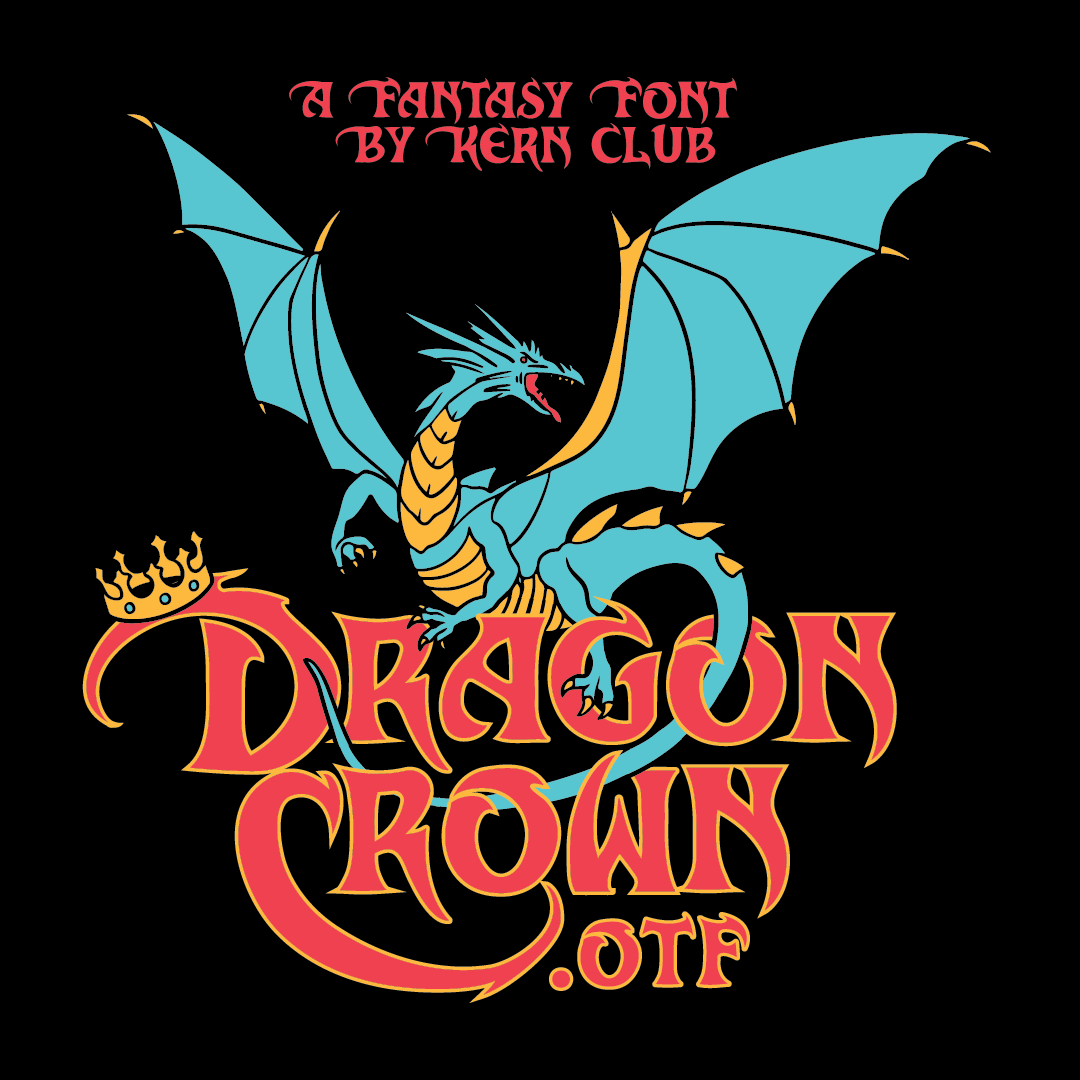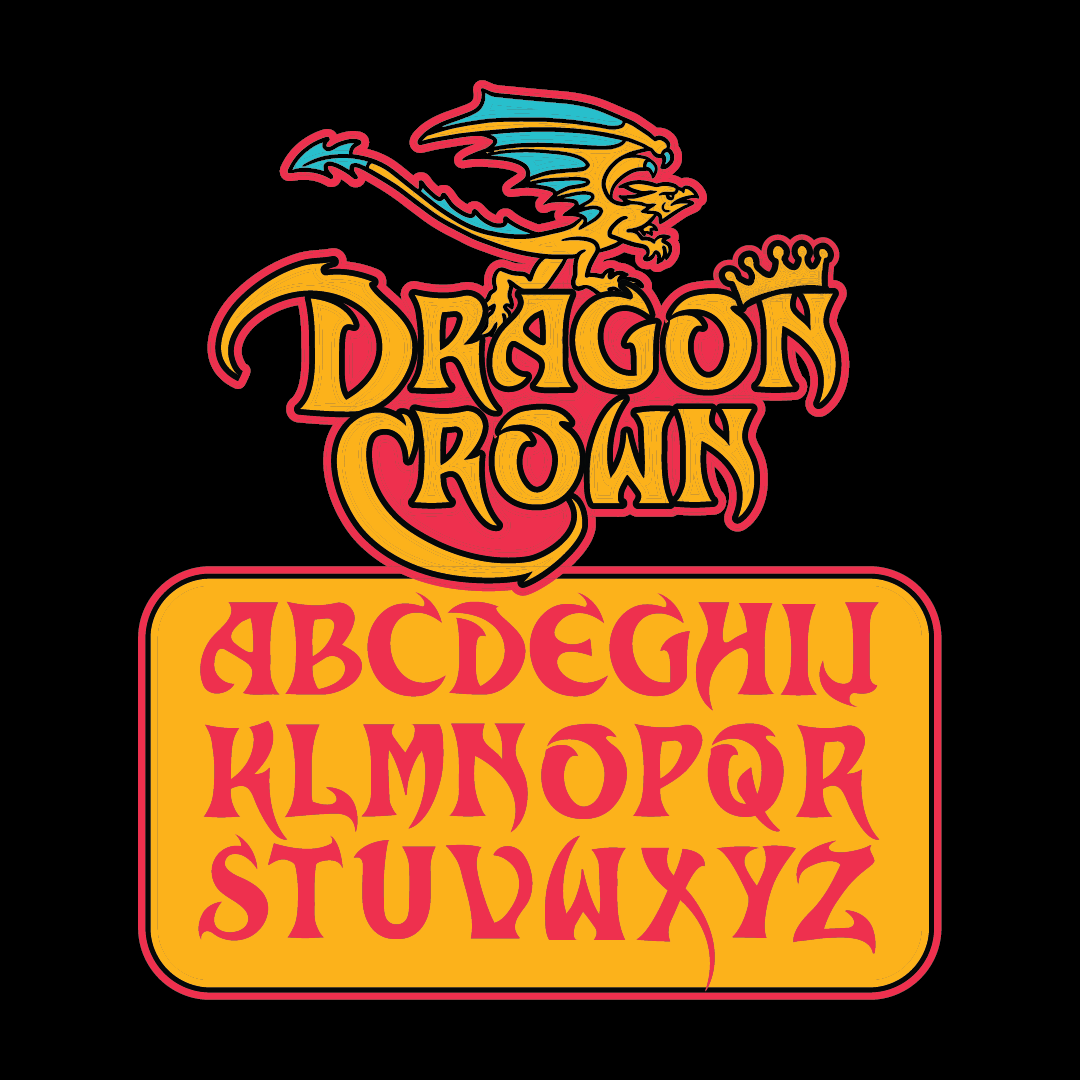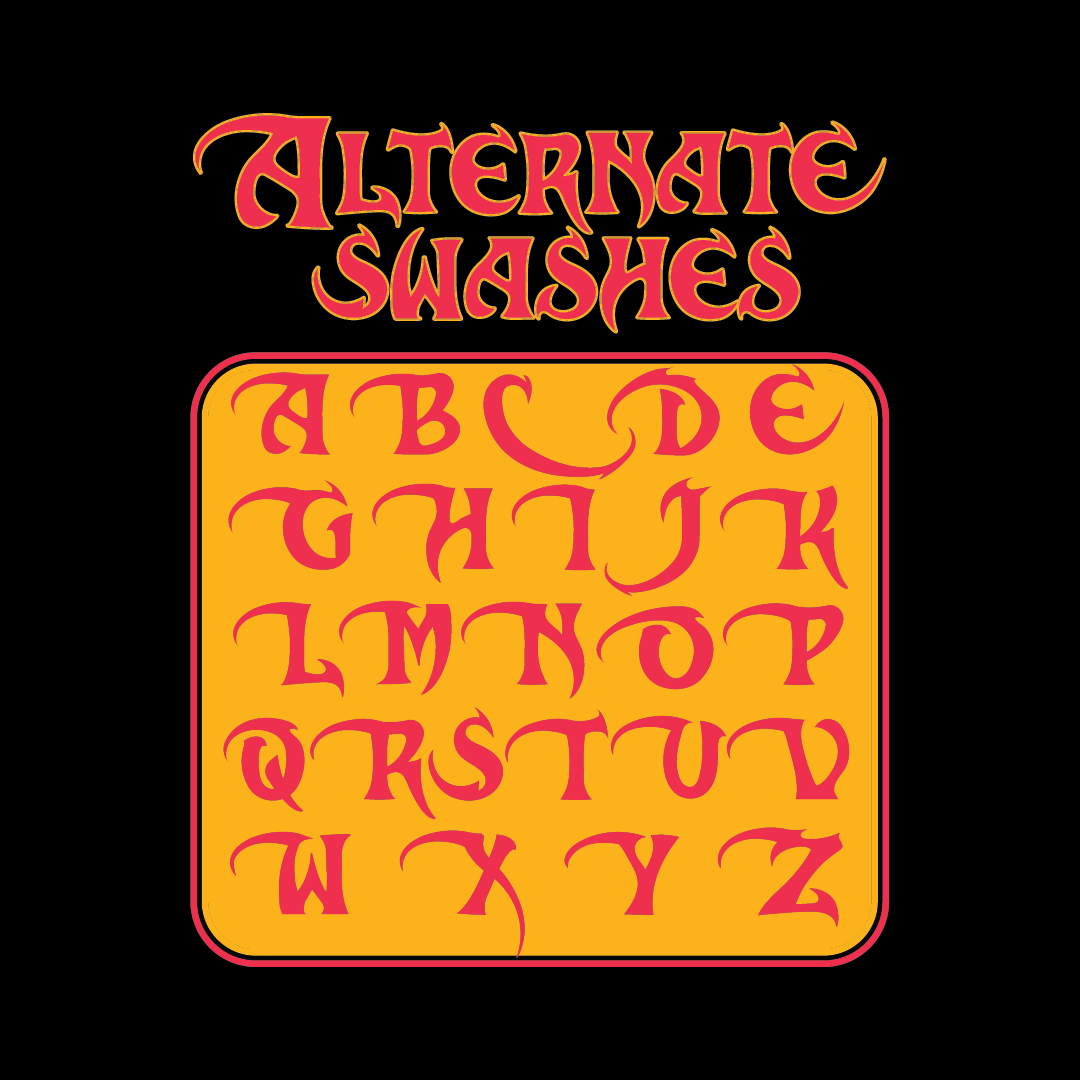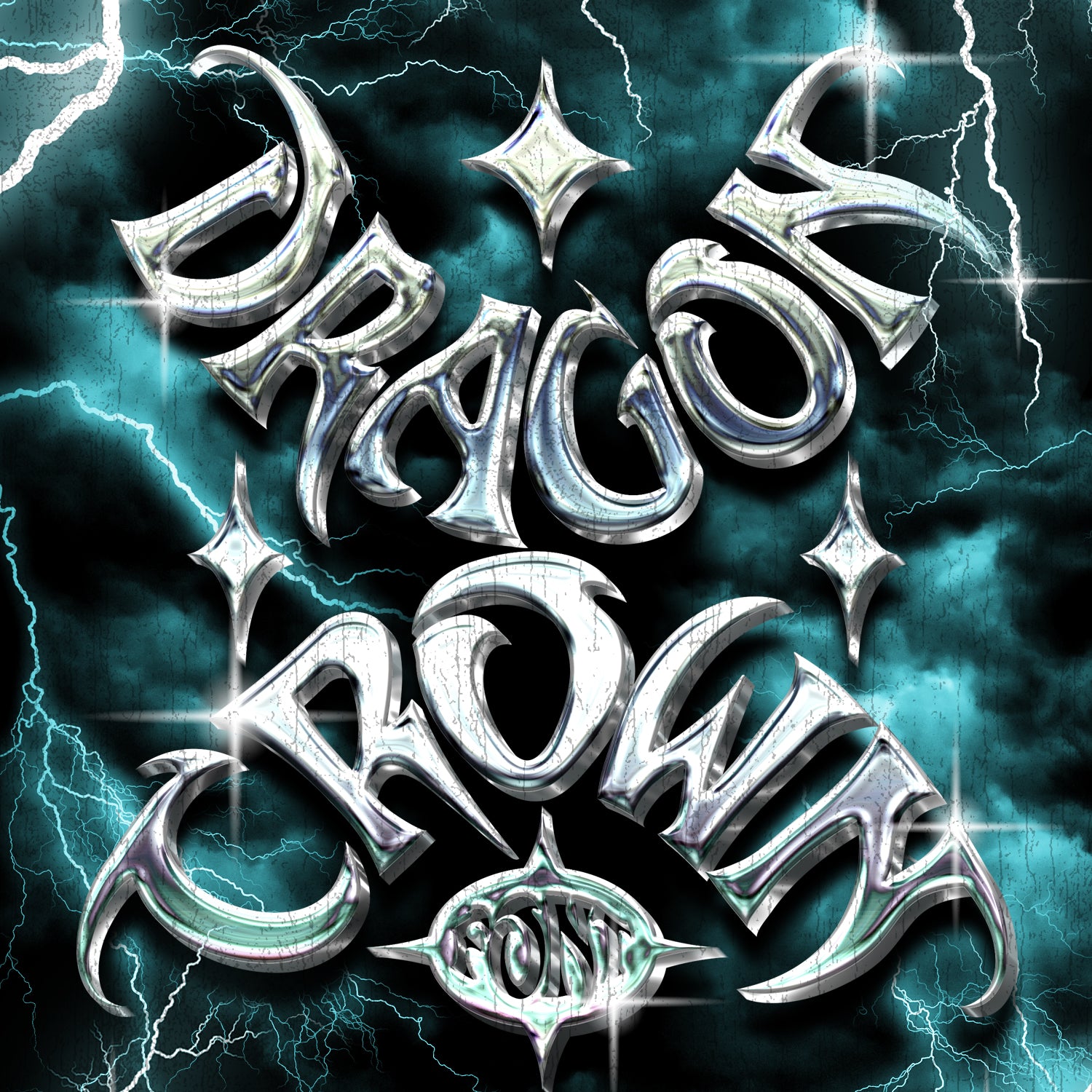
Dragon Crown Font
A whimsical fantasy serif forged for epic quests and legendary logos. Featuring dramatic swash capitals, Dragon Crown brings the magic of '80s fantasy novels to your next design. Perfect for posters, apparel, branding, book covers, and anything that you need to look extra sick.
- Tons of Alternate Swashes